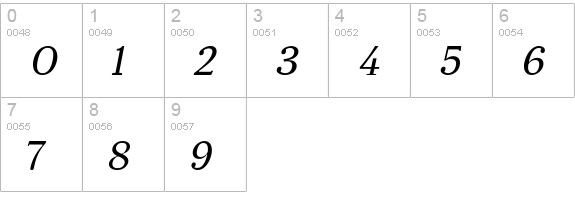
Serif12 Beta Italic is a distinctive, italic variant in the Serif12 typeface family \xE2\x80\x94 well suited to design and typography projects.
Serif12 Beta Italic font exudes a sense of elegance and sophistication with its sleek design and graceful curves. The italicized styling adds a touch of flair and personality, making it a perfect choice for projects that require a touch of creativity and refinement. The font's clean lines and balanced proportions ensure readability and legibility, making it suitable for a wide range of design purposes. What sets Serif12 Beta Italic font apart is that it is available for free! Yes, you read that right - this stunning font can be freely downloaded at FontsMarket.com. Whether you're working on a professional project or simply looking to enhance your personal creations, Serif12 Beta Italic font is a versatile choice that will elevate your designs to the next level. Don't miss out on the opportunity to add this exquisite font to your collection today!